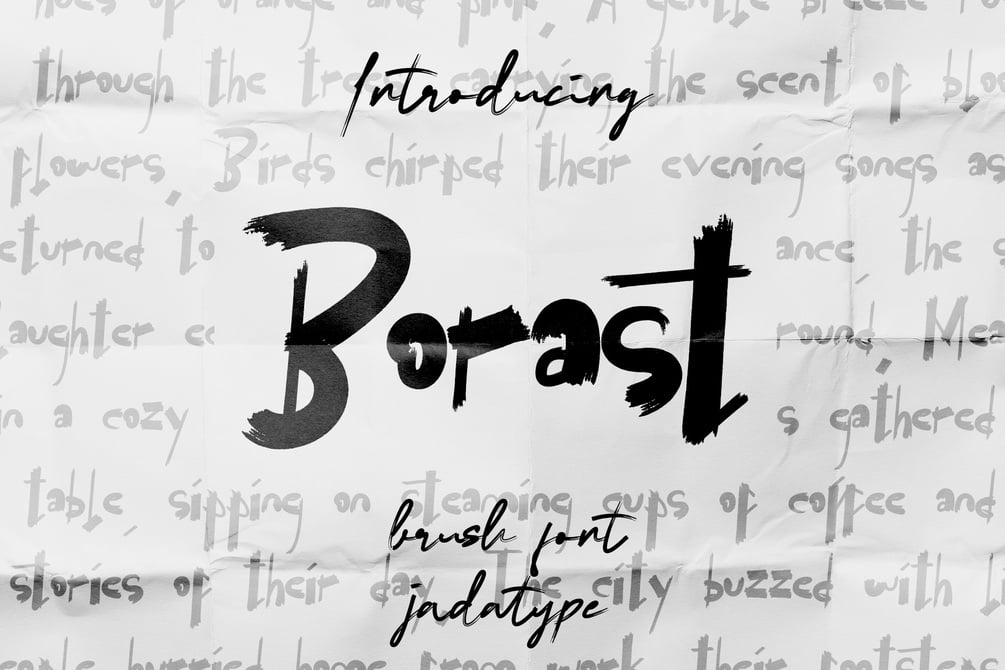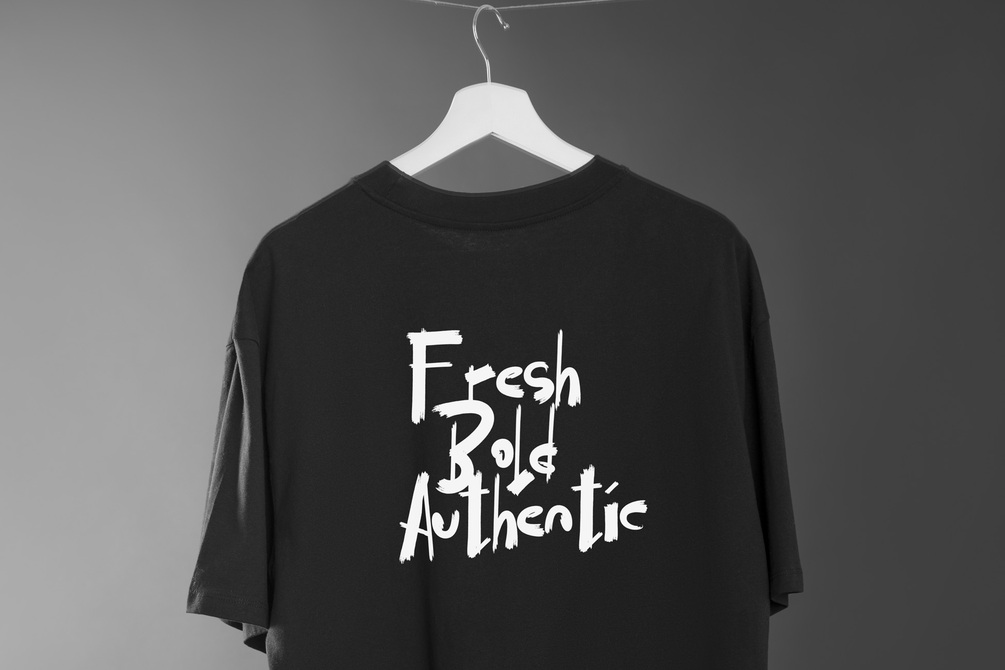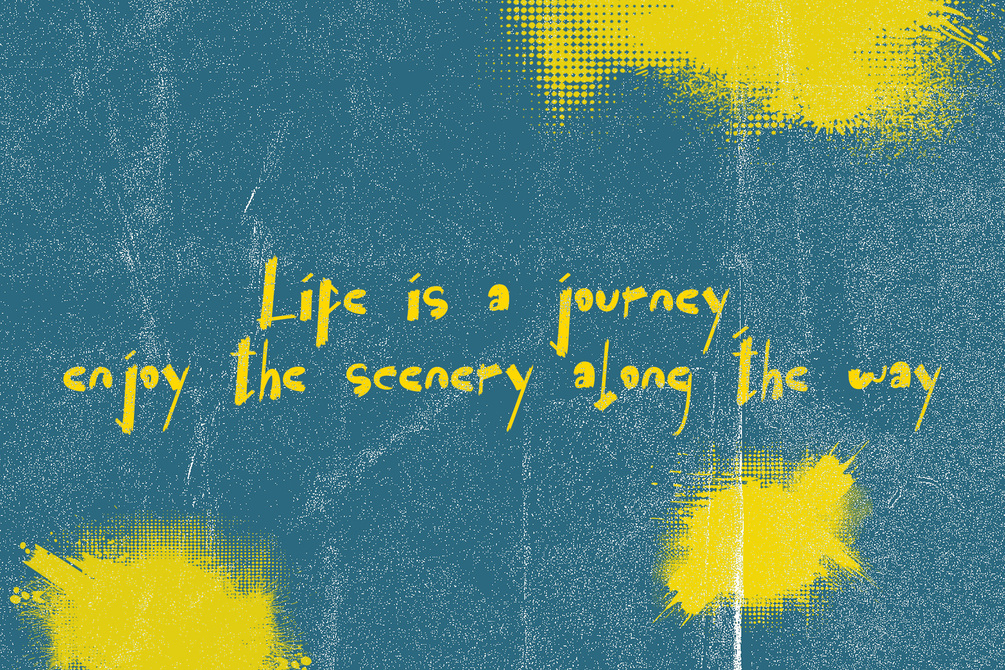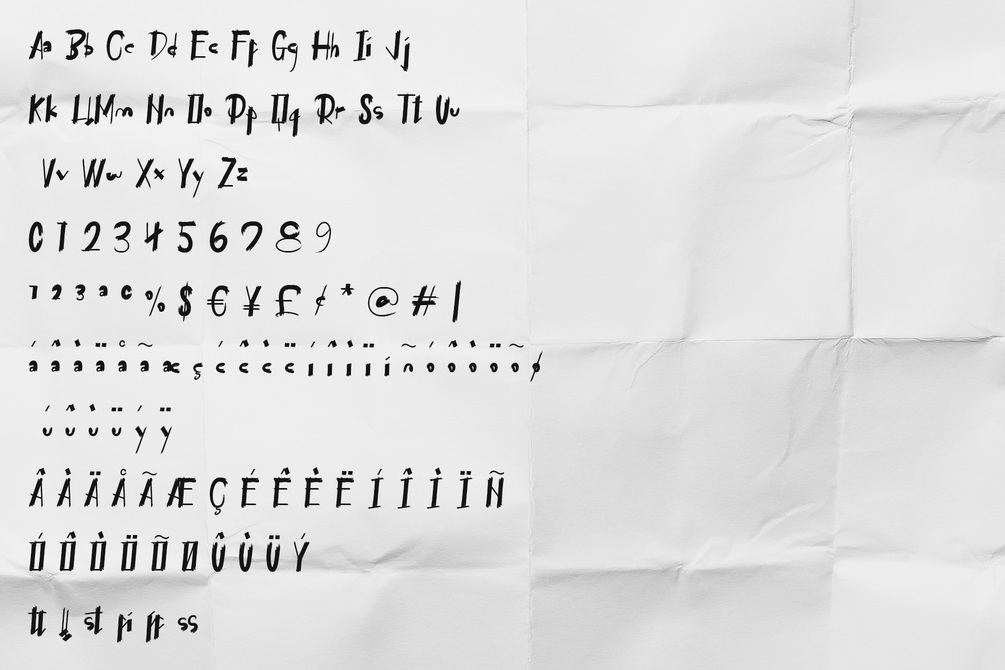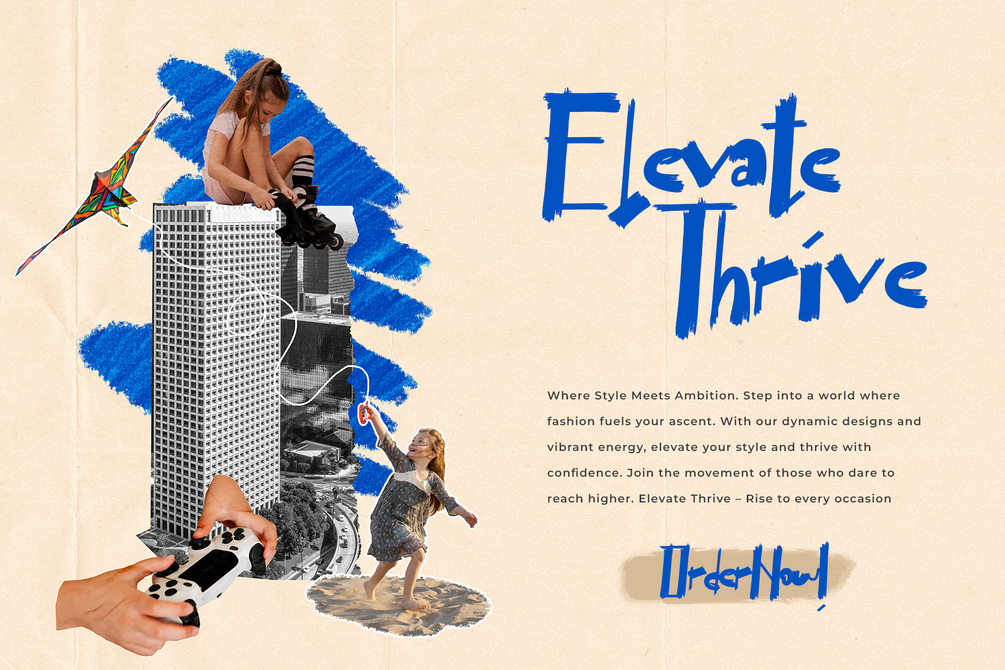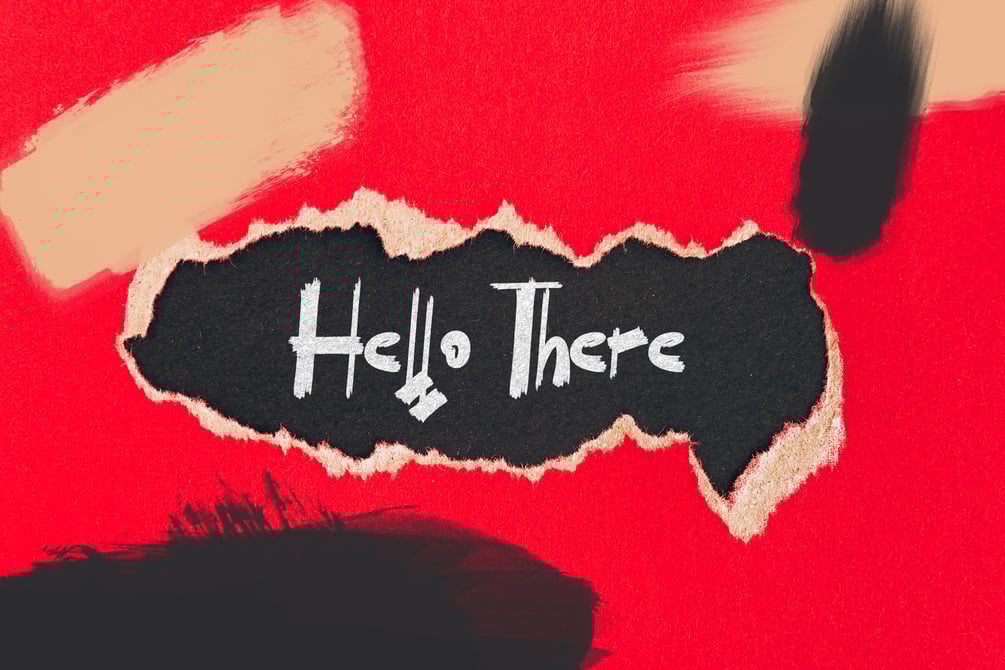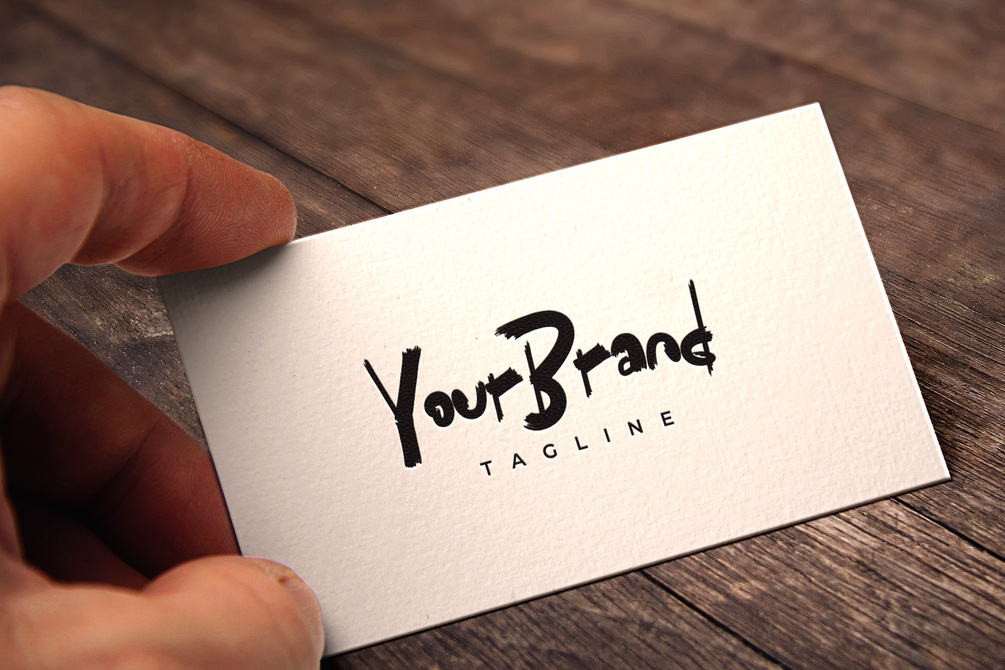
Borast Font
Borast is a display font that comes with handwritten brush. Suitable for product, Branding, social media, logotype and so on. contains standard English letters, numbers, punctuation, and several accents that support multilingualism.